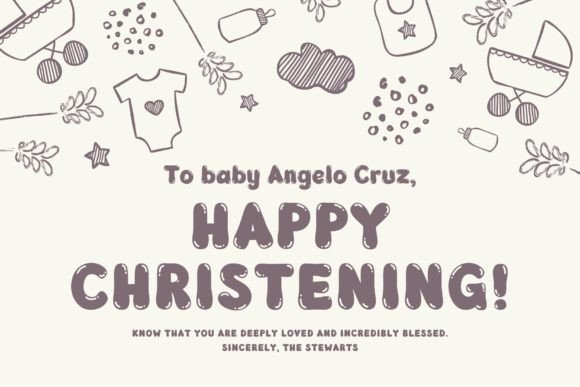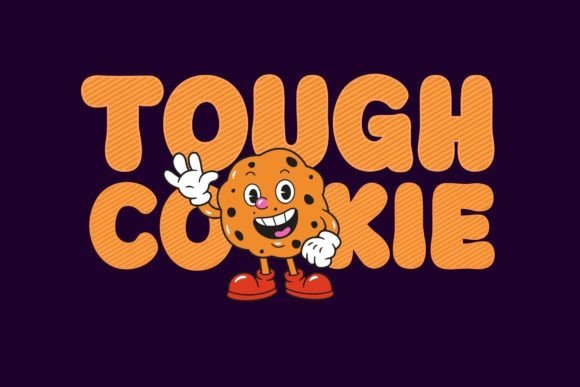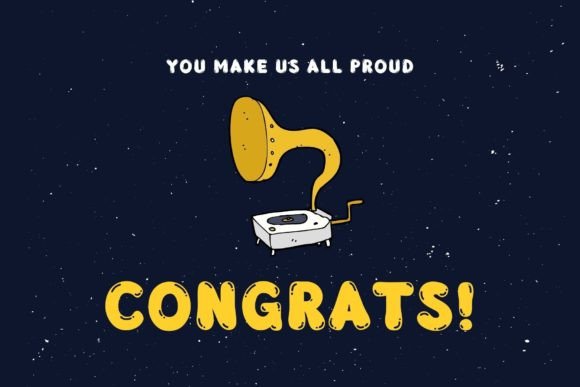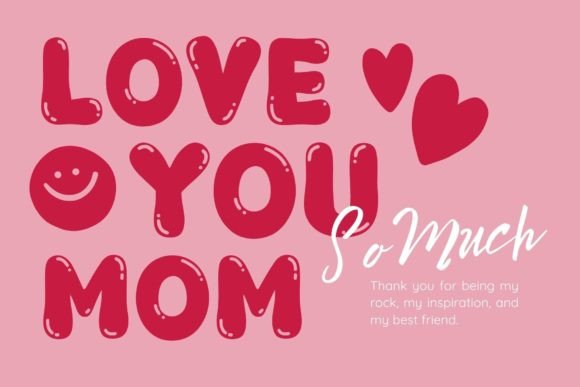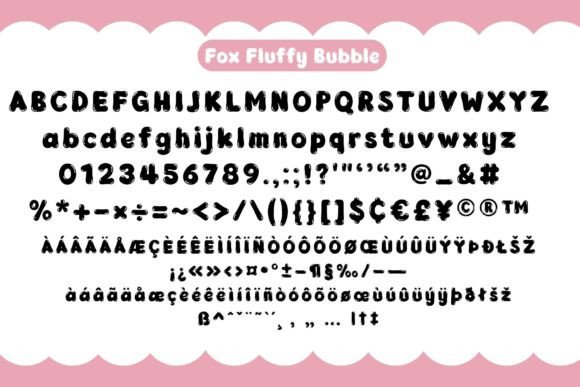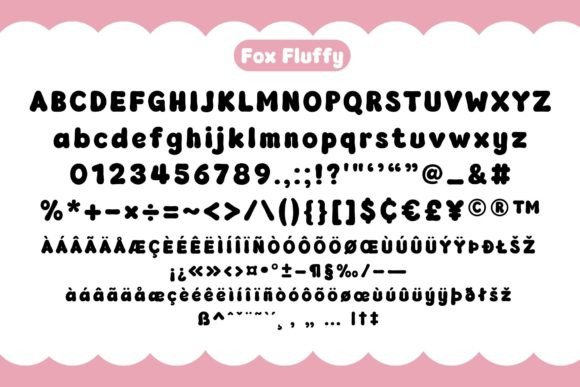
Introduction to Fox Fluffy Font
Fox Fluffy is a 5 style font that cool cute and playful display font that adds a captivating and energetic touch to your designs.
With its fun and funky letterforms, this font is perfect for adding a touch of personality to any design project Whether youโre creating t-shirts, stickers, childrenโs book covers, social media posts, or anything in between, Fox Fluffy font is the perfect choice for making your designs stand out.